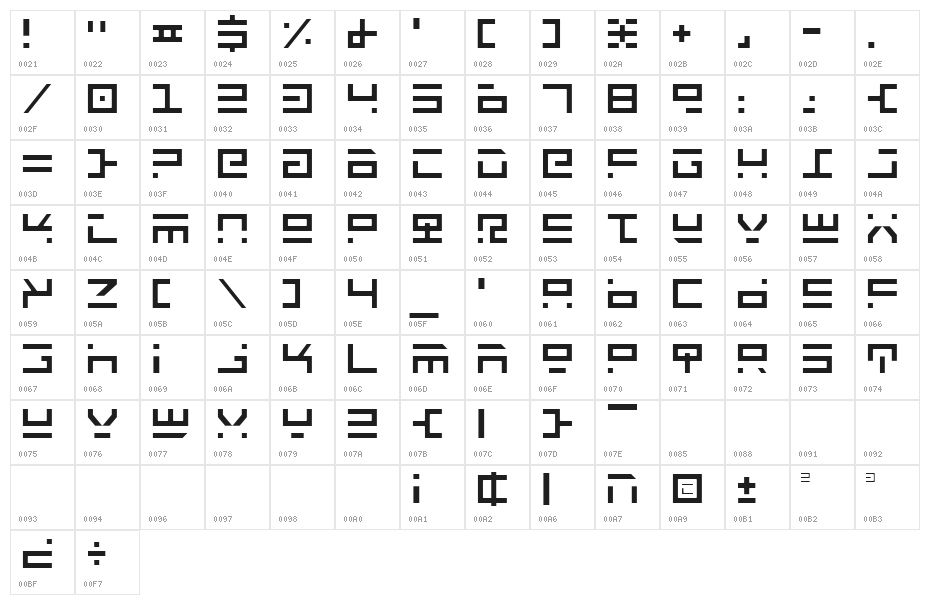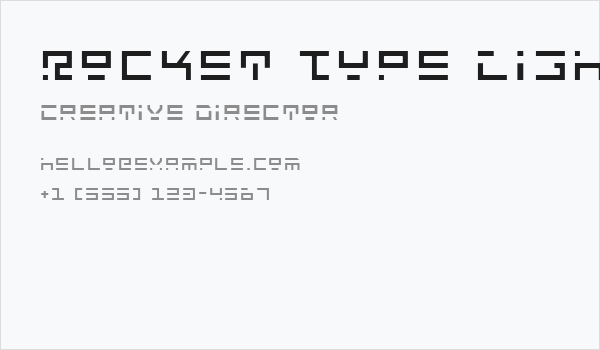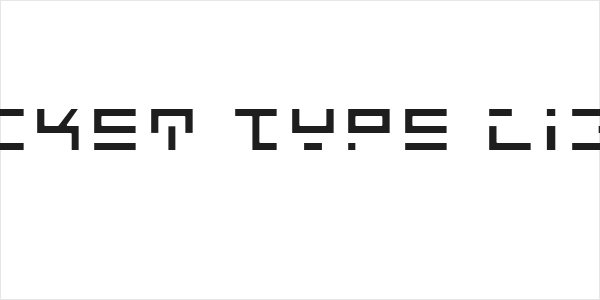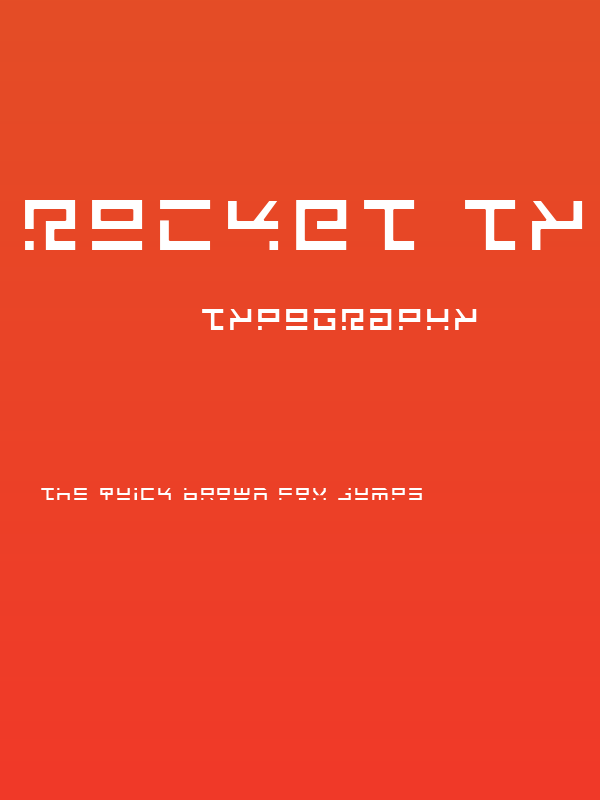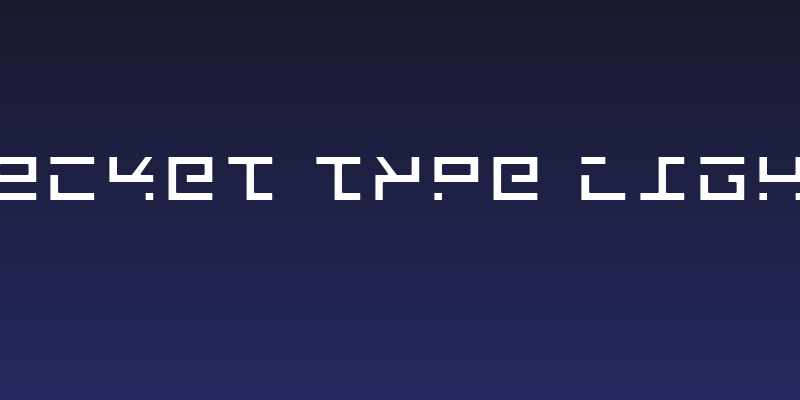
Rocket Type Light Font
Rocket Type Light Description
This font features a futuristic and geometric design, characterized by its blocky and angular letterforms. Each character is constructed with a series of straight lines and right angles, giving it a distinctly mechanical and digital appearance. The font maintains a consistent stroke weight throughout, contributing to its uniform and structured look. The spacing between characters is tight, enhancing its compact and efficient style. This font is particularly suitable for projects that require a modern and technological aesthetic, such as digital interfaces, video game graphics, or sci-fi themed designs.
Proposed ProjectsIdeal for digital interfaces, video game graphics, sci-fi themed designs, and technology branding.